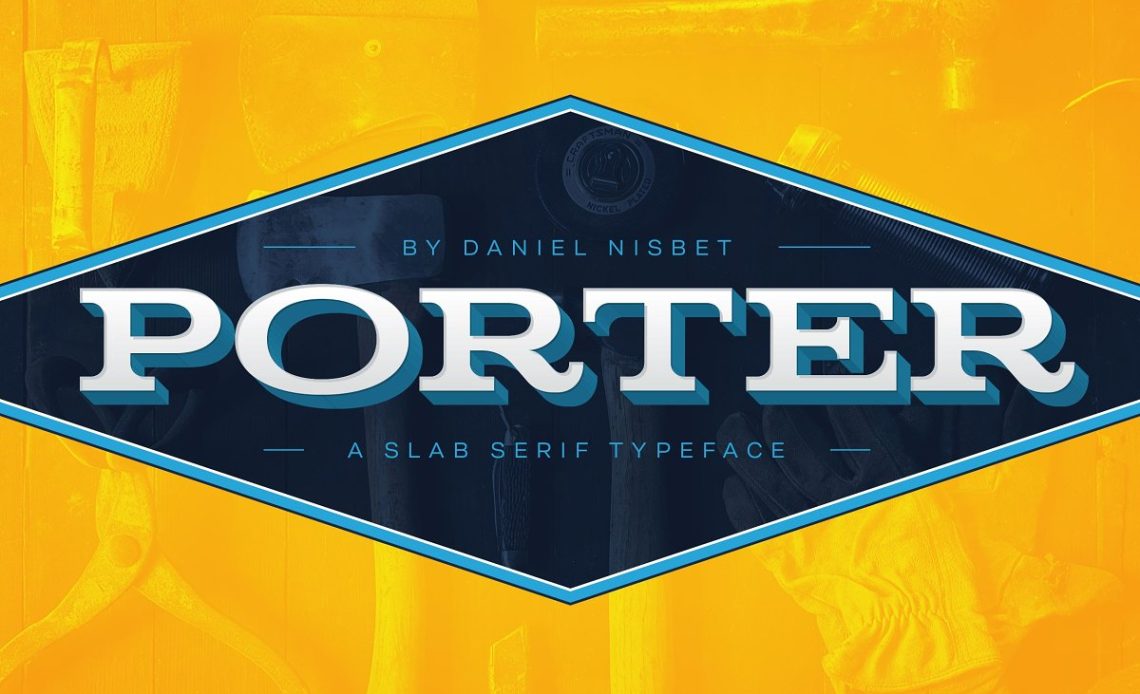
Introducing Porter, the ultimate Slab Serif Display Font that will give your design projects an industrial and hard-working look! Created by Daniel Nisbet, this font family is the perfect fit for headlines or logos that require a bold and eye-catching appearance.
Inspired by mid-19th century typefaces, Porter features generous slab serifs that add a touch of sophistication and elegance to any project. Whether you're working on a branding campaign for a manufacturing company or designing a poster for an industrial event, Porter is the perfect choice to make a bold statement.
With desktop and web fonts available, you can take your design project to the next level with ease. Porter's versatility allows it to be used in a variety of applications, making it a must-have for any designer's toolkit.
Don't settle for boring fonts that fail to capture the essence of your project. Choose Porter for a font that truly represents the hard-working and industrial style you're going for. With its bold and captivating appearance, Porter is sure to leave a lasting impression on your audience.